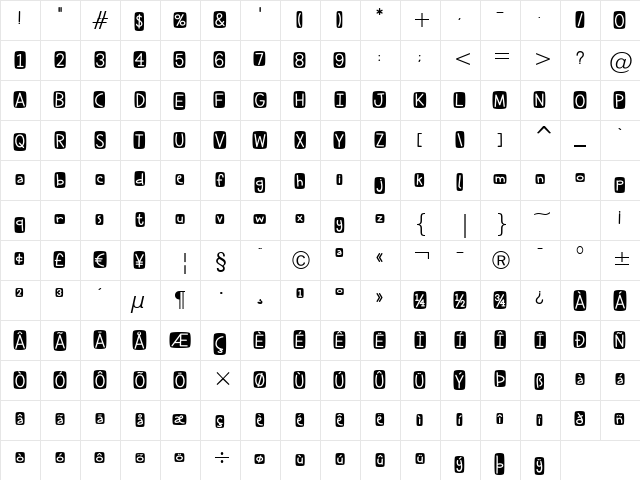
Cheddar Salad BTN Cameo Rev Regular
Design Context for Cheddar Salad BTN Cameo Rev Typeface
Cheddar Salad BTN Cameo Rev is a composed and adaptable typeface that performs quietly and consistently across a wide range of design contexts.